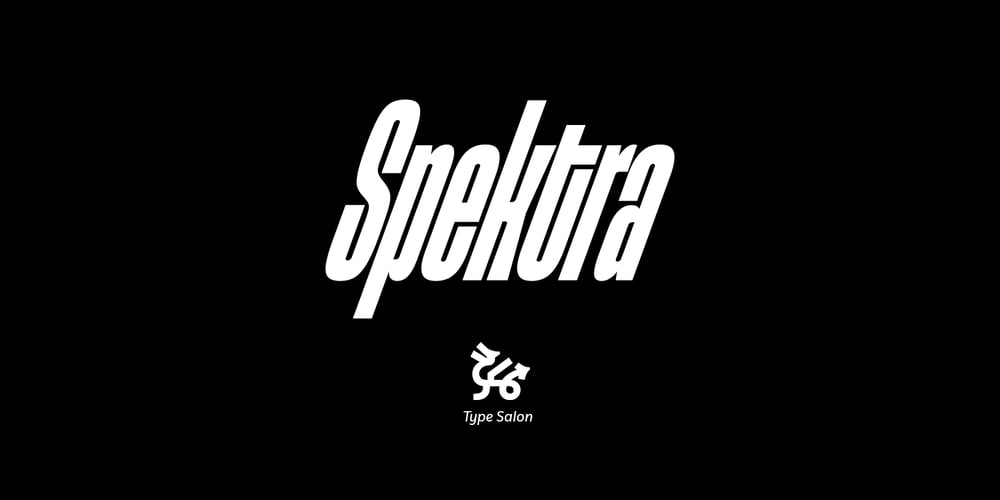
Spektra Font Family was designed by Krista Likar, Alja Herlah and published by Type Salon. Spektra contains 3 styles and family package options. Spektra is a multi-script type family that combines 5 scripts: Latin, Cyrillic, Arabic, Greek and Hebrew. It is a variable font – ranging from backslant to italic axis. Its condensed and black shapes are combining the same style concept throughout every script. Progressive shapes contribute to expressing statements on bigger mediums. Spektra combines different locations, cultures and ideas as statements around the world and celebrates the differences among them.Awards• Modern Cyrillic 2021